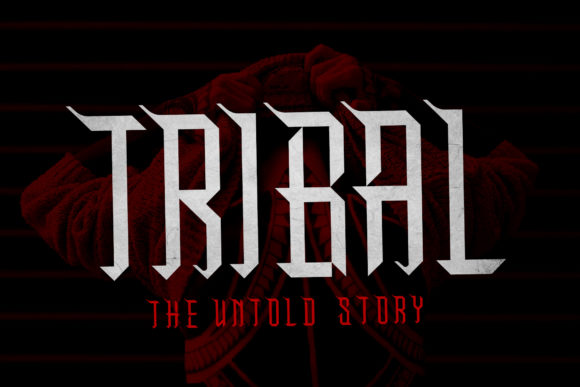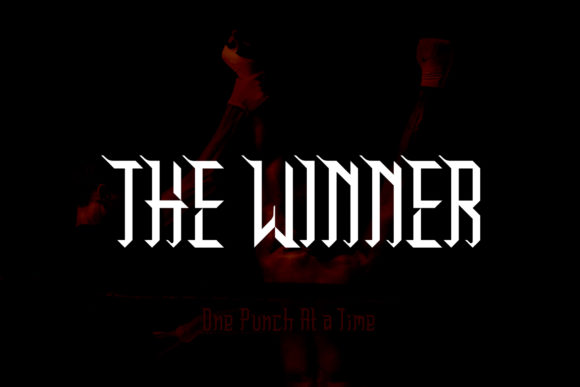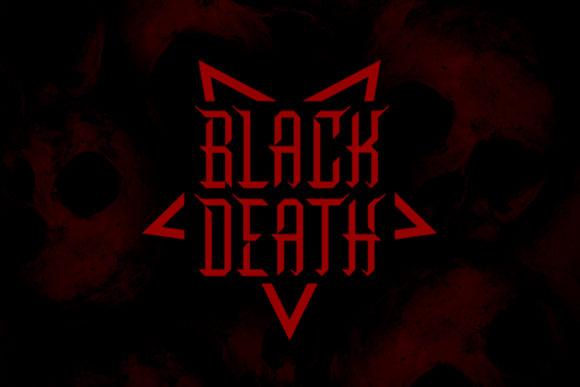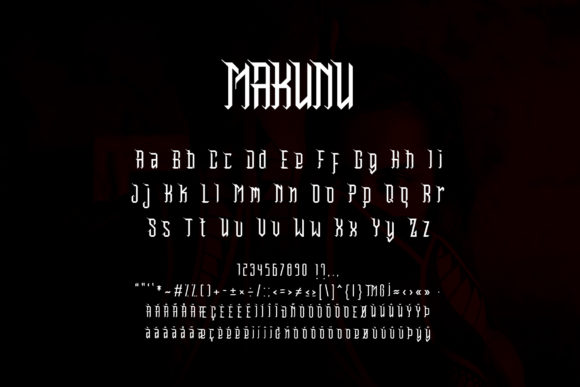
Introduction to Makunu Font
Makunu is a bold and dramatic blackletter font.
It is ideal for each of the creative designs that you wish to put forth .